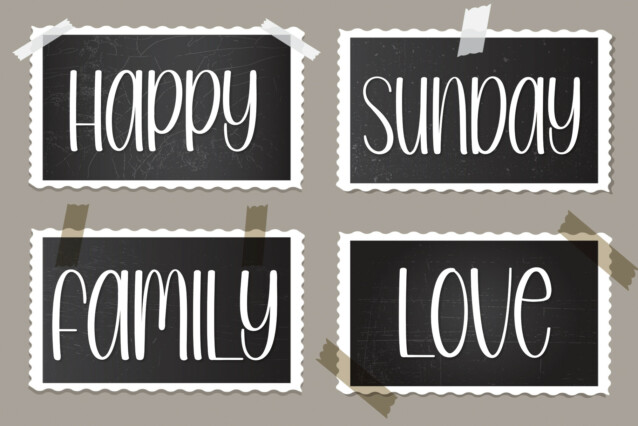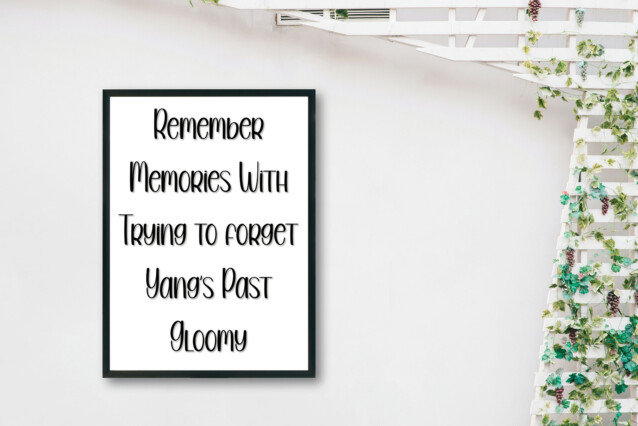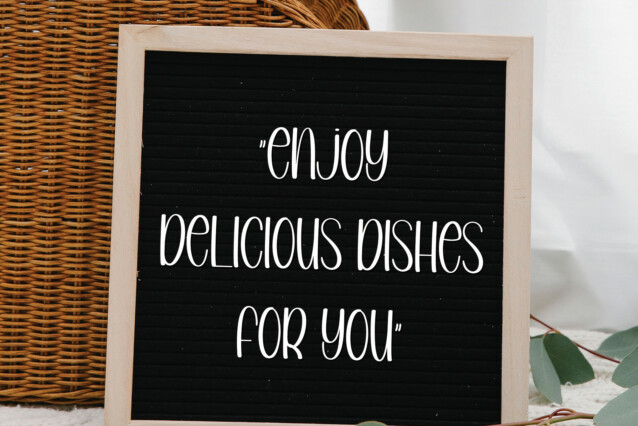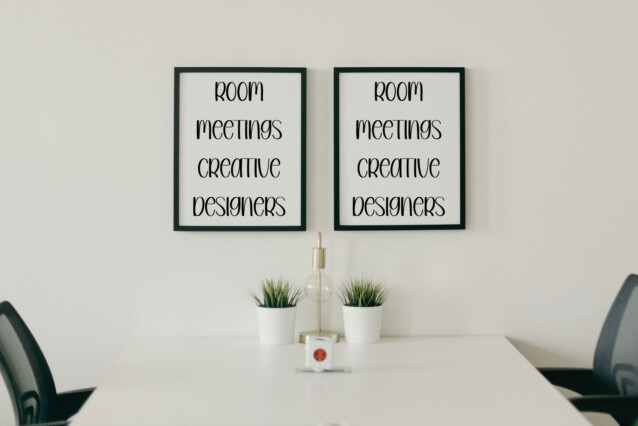
January Holiday Display Typeface
January Holiday Display Typeface is a cool and relaxed handwritten font. This versatile font has a wide spectrum of applications ranging from greeting cards to headlines and is guaranteed to add a neat and natural feel to your next project!